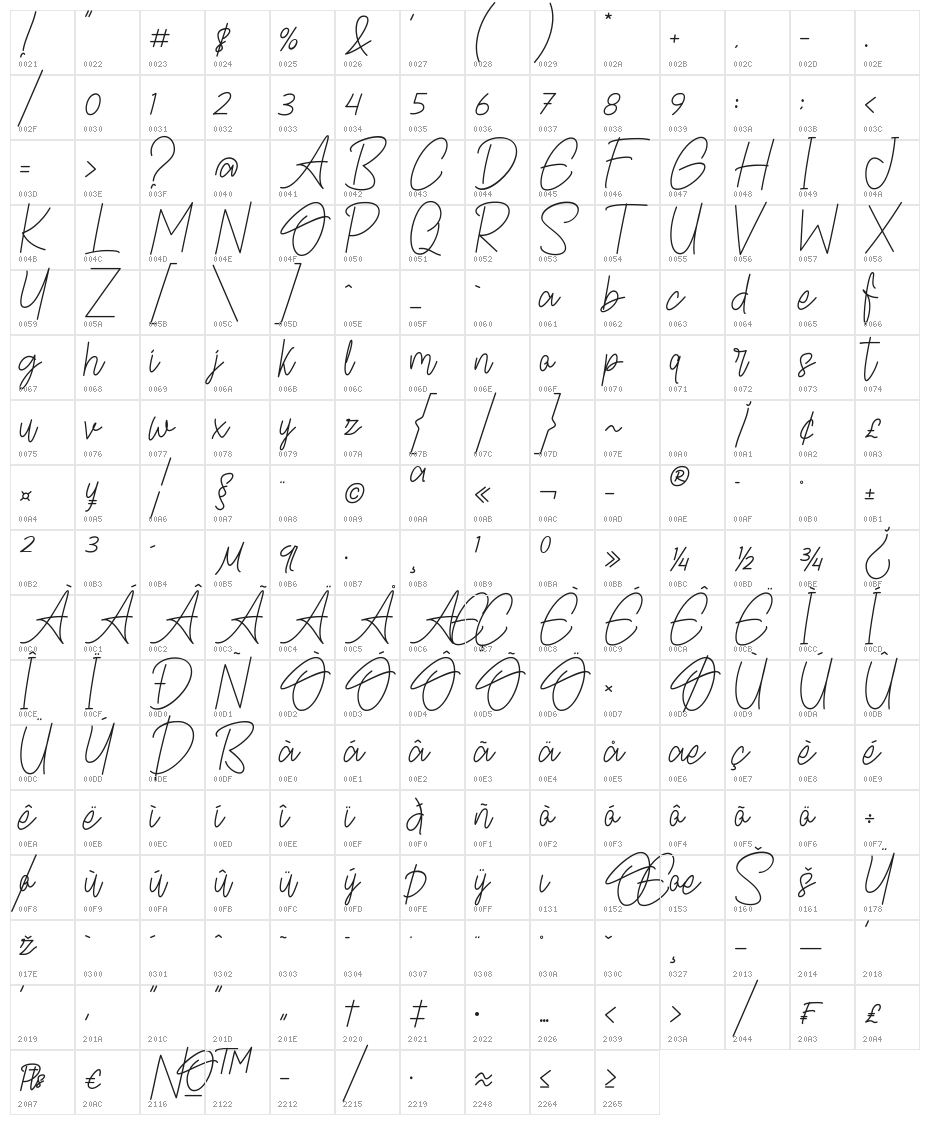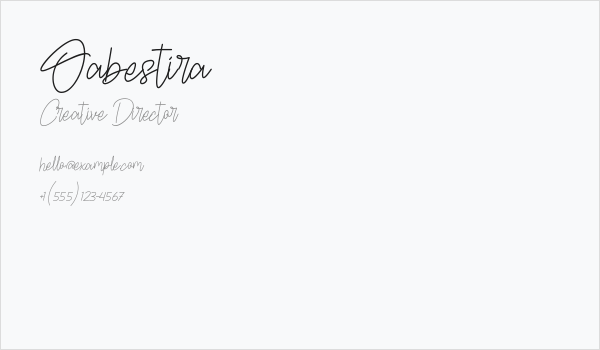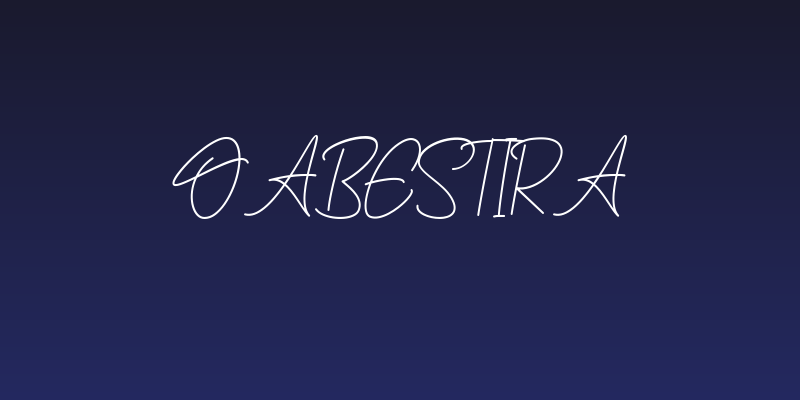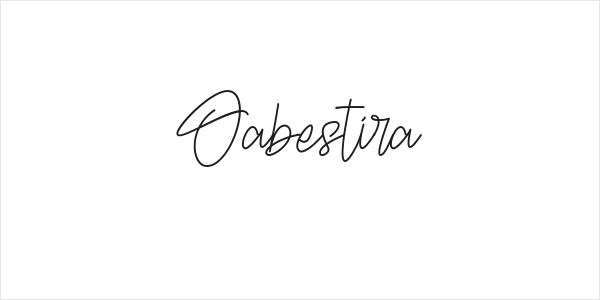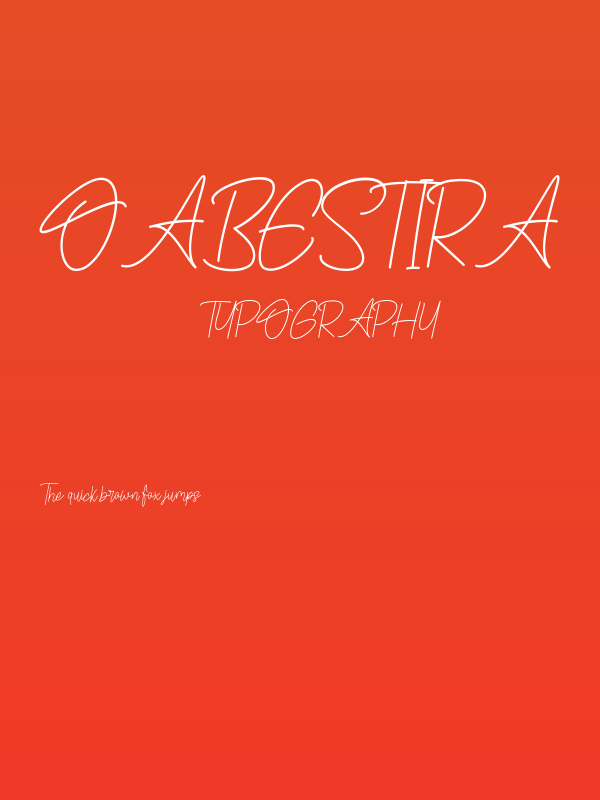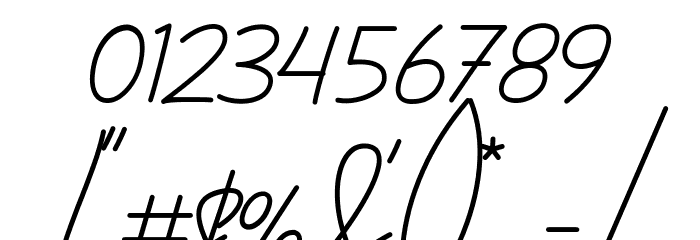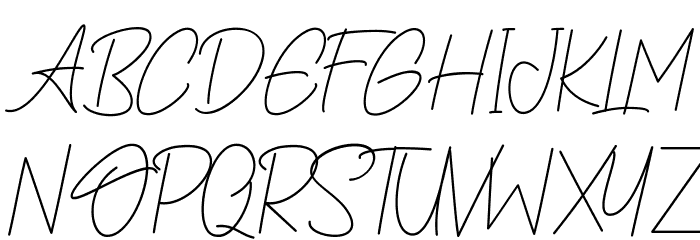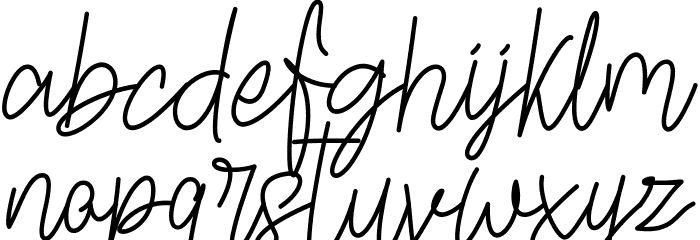
Oabestira Font
Oabestira Description
This font features a lively and dynamic handwritten style, characterized by its fluid and continuous strokes. The uppercase letters exhibit a slight slant, adding a sense of motion and elegance, while the lowercase letters maintain a consistent flow, enhancing readability. The numerals are clear and distinct, complementing the overall aesthetic. Special characters are seamlessly integrated, maintaining the font's cohesive appearance. The thin lines and smooth curves create a light and airy feel, making it suitable for projects that require a personal and approachable touch.
| Proposed Projects | Ideal for personal branding, invitations, greeting cards, and creative projects that require a personal touch. |